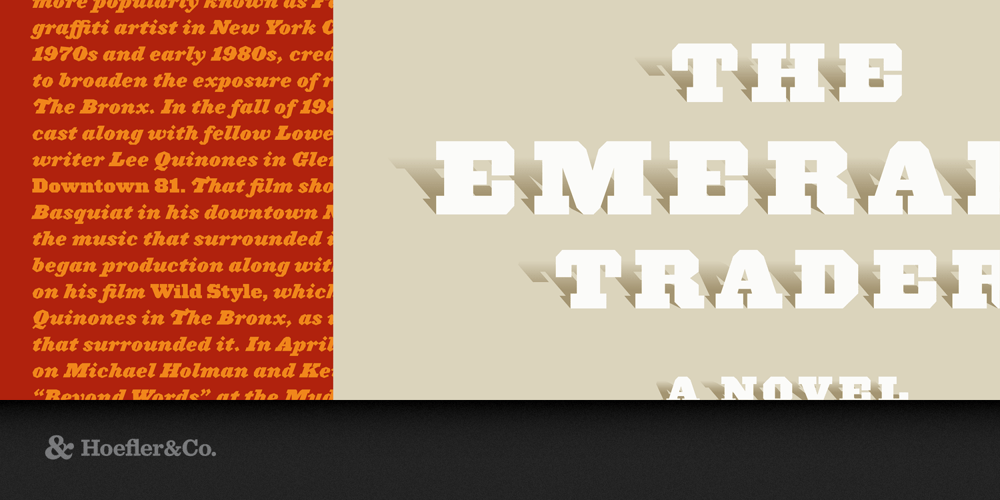
Acropolis
Acropolis font
Acropolis Font Family was designed by Jonathan Hoefler and published by Hoefler & Co.. Acropolis contains 2 styles and family package options. A reimagined display face, with a twist. The Acropolis typeface was designed by Jonathan Hoefler in 1992. Acropolis is a design in the ‘grecian’ style, a genus of slab serif characterized by chamfered corners, which emerged in the late Georgian period and flourished in the United States of the mid-nineteenth century. A part of The Proteus Project, the typographic theme-and-variations based on related Regency styles, Acropolis was the first grecian type family to include a companion cursive italic. Acropolis was created for Rolling Stone, in whose pages the typeface first appeared in 1993.> Lacking any historical precedent, Acropolis Italic attempts to be sympathetic to historical form while avoiding nostalgic clichés.